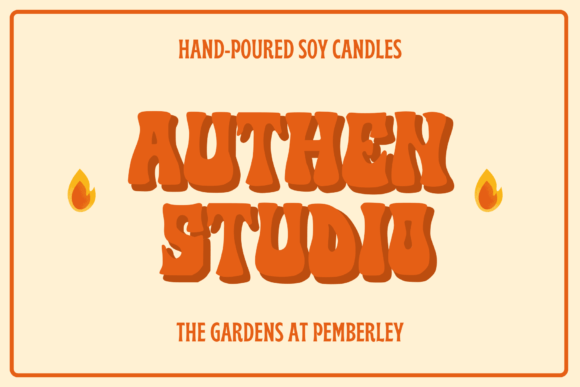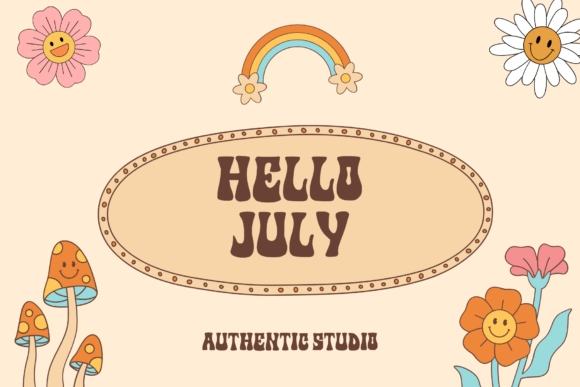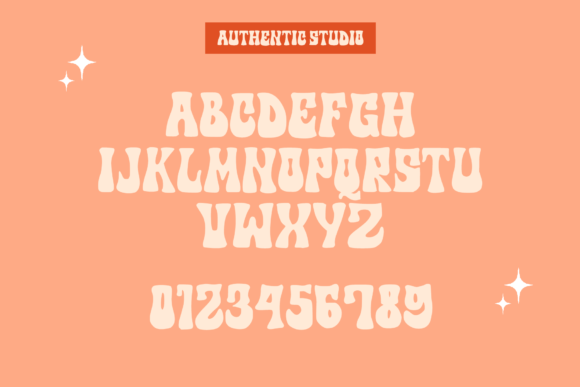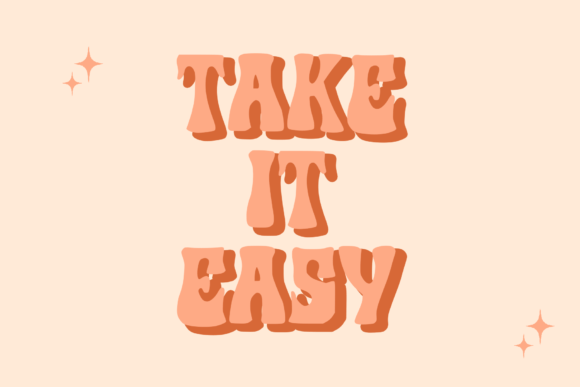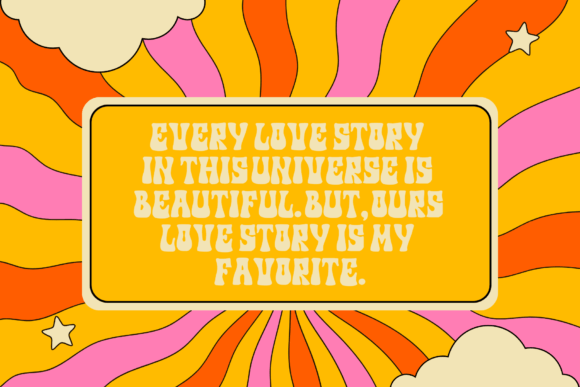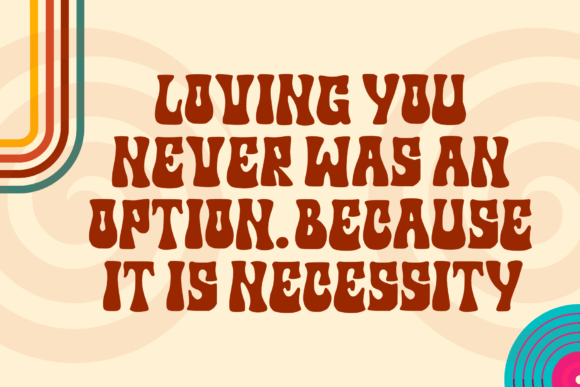
Get Your Funk On: The Power of the Camed Groovy Font
Who hasn’t been stuck in a creative rut, staring blankly at a blank canvas, desperately seeking inspiration? You know, that moment when you need a spark to set your design ablaze. For designers, it’s a common phenomenon, but with the right tools, it can be a thing of the past. Enter the Camed Groovy Font, a game-changer that’s about to revolutionize your design process.
This stylish font is the perfect choice for projects that demand a touch of funk and personality. Whether you’re working on an album cover, poster, or advertisement, the Camed Groovy Font lends itself well to designs that require attention-grabbing flair. With its unique aesthetic shape, it’s a valuable addition to any designer’s toolkit, ensuring your creations exude an infectious sense of fun and personality.
Camed Groovy Font Key Features
- Unique Characteristic: Camed Groovy Font features a unique, hand-drawn design with a groovy, psychedelic feel.
Camed Groovy Font Review
Overall, I’d say the Camed Groovy Font has its charms, but it also has some quirks that may not make it perfect for every project. Let’s dive in and explore what works well and what doesn’t. ✨
- Unique, hand-drawn style that adds a touch of personality to your designs
- Good for creative projects, like posters, flyers, and social media graphics
- Supports a wide range of languages, making it a good option for multilingual designs
However, like any font, Camed Groovy has its limitations. ⚠️
- May not be the best choice for body text, as it can be difficult to read in larger blocks
- Lack of support for certain special characters and symbols
- Not ideal for formal or professional designs, as it may come across as too playful or casual
Overall, I think the Camed Groovy Font is a fun and creative option that’s perfect for projects where you want to add a bit of whimsy. Just be mindful of its limitations, and use it where it shines – in creative, eye-catching designs where its unique style can really make an impact.
Getting the Most Out of Camed Groovy Font
To get the most out of Camed Groovy Font, use it for creative projects that require a unique and playful touch, such as:
- Music festival posters
- Food and drink menus
Camed Groovy Font is perfect for:
- Adding a fun and playful touch to your designs
- Creating a retro or vintage vibe
- Highlighting important text or headings
Alternatives to Camed Groovy Font for Designers
Great Vibes is a beautiful, handwritten font perfect for adding a touch of elegance and sophistication to designs. It’s ideal for use in headings, titles, and quotes where you want to create a sense of luxury and refinement.
Compared to Camed Groovy Font, Great Vibes has a more refined and polished look, making it suitable for high-end designs. While Camed Groovy Font has a more playful and casual vibe, Great Vibes is better suited for formal and professional projects.
Pacifico is a lovely, modern script font that works well for creating a sense of calmness and serenity. It’s perfect for use in headings, titles, and body text where you want to convey a sense of relaxation and tranquility.
Compared to Camed Groovy Font, Pacifico has a more subtle and understated look, making it suitable for designs where you want to avoid distractions. While Camed Groovy Font has a bold and eye-catching quality, Pacifico is better suited for more subtle and refined designs.
Carolyna Pro is a stunning, modern script font that’s perfect for creating a sense of drama and sophistication. It’s ideal for use in headings, titles, and quotes where you want to create a sense of excitement and energy.